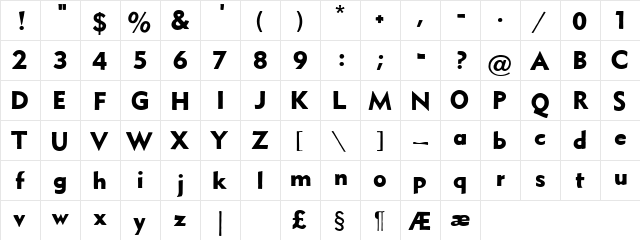
Metro Black HPLHS
Design Context for Metro Black Typeface
Metro Black offers clean, dependable letterforms without strong stylistic allegiance, making it a practical choice for designers who need flexibility.
Pro Tip: Use Metro Black in both headline and body roles to test its range before committing to a single application.